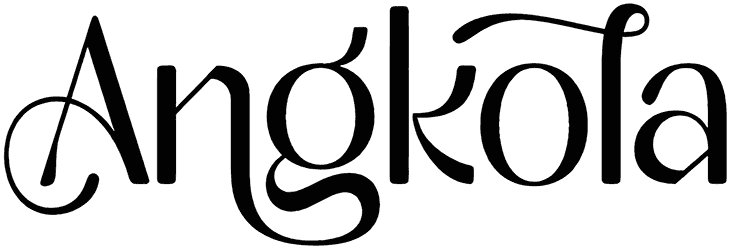
Angkola Font
Isn’t it just wonderful when you get to increase the visual appeal of your text by at least ten times using nothing but Angkola? Along with it comes a charming quality, of course, that can make your design unforgettable, all thanks to this ligature font and its classy style.
That means if you have some event planning business to promote or need a business card to introduce you as an interior designer, you can always count on this swash font.